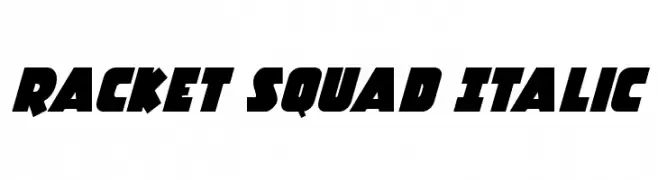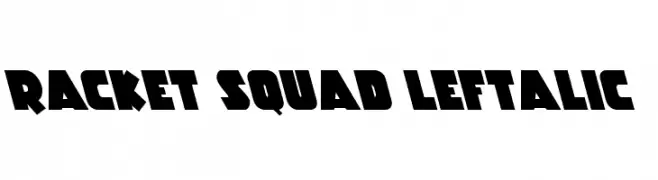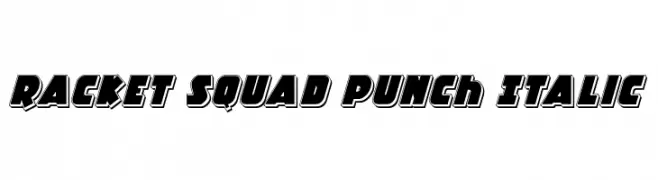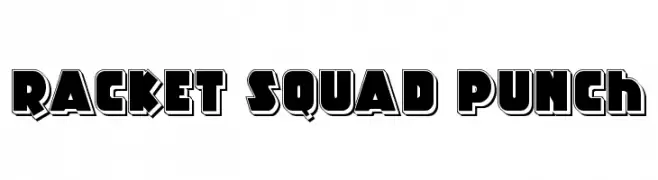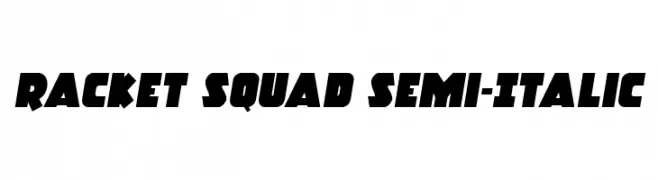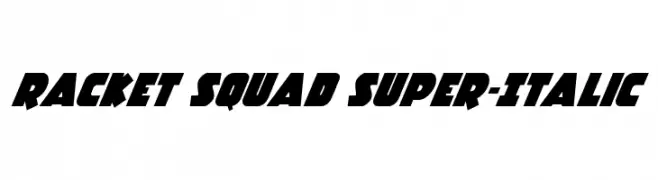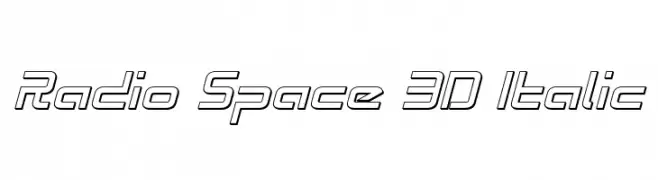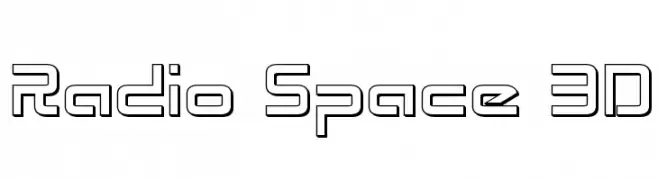
A bold, italicized font with angular strokes and tight spacing.
A bold, angular font with a leftward slant and geometric style.
A bold, decorative font with a 3D shadow effect and thick outlines.
A bold, italicized font with a dynamic 3D shadow effect.
A bold, semi-italic font with a dynamic, angular design.
A bold, italic font with sharp angles and a dynamic, energetic style.
A futuristic, geometric font with a 3D outlined style.
A futuristic, 3D italic font with outlined characters and a tech-inspired design.
A sleek, futuristic, condensed italic font with a modern, tech-oriented design.